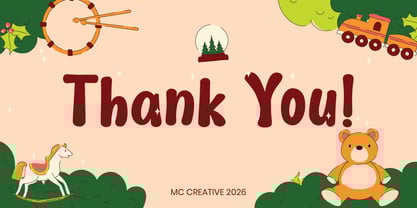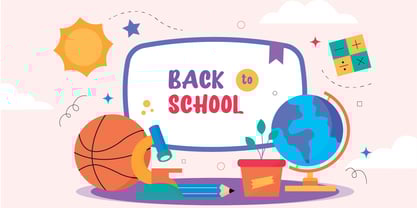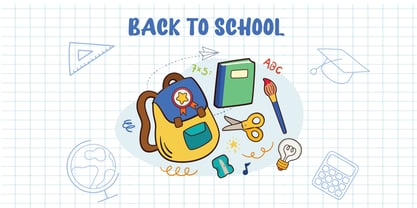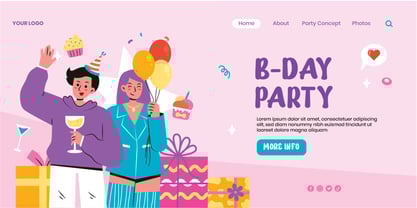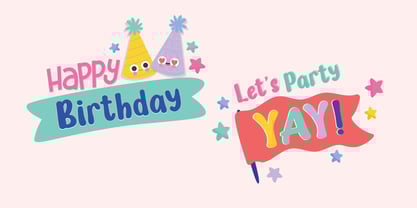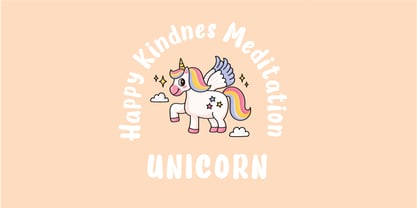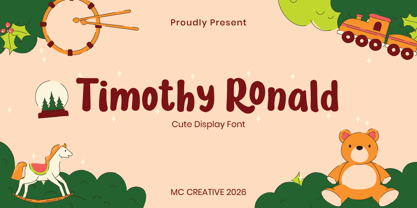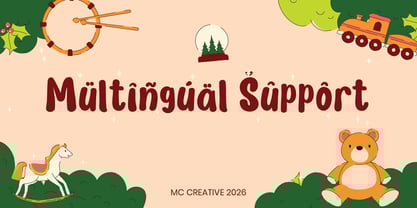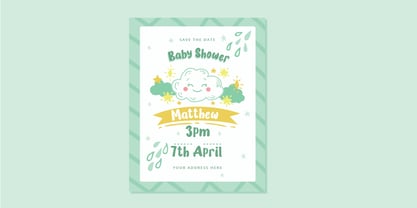
Timothy Ronald
by MC Creative
The Timothy Ronald Font Family was designed by Mohamad Candirah and published by MC Creative. Timothy Ronald contains 1 styles.
Timothy Ronald is a charming display font that radiates playfulness and authenticity, making it an ideal choice for children's themed designs, especially when paired with vibrant colors. This versatile font is perfect for a variety of applications, including branding projects, logos, wedding designs, social media posts, advertisements, product packaging, labels, photography, watermarks, invitations, stationery, and any project that requires a handwritten touch. What’s Included: - Standard Glyphs - Ligatures - Compatibility with PC & Mac - Easy installation - Accessibility in Adobe Illustrator, Adobe Photoshop, Adobe InDesign, and Microsoft Word - PUA Encoded Characters – Fully accessible without additional design software The font also offers multilingual support for characters such as ä, ö, ü, Ä, Ö, Ü, ß, ¿, and ¡.
Designers: Mohamad Candirah
Publisher: MC Creative
Foundry: MC Creative
Design Owner: MC Creative